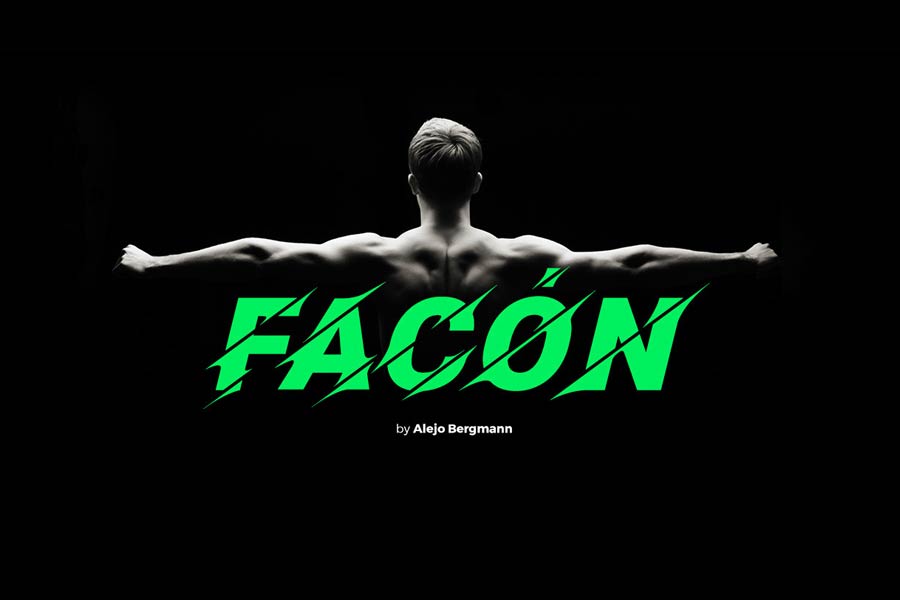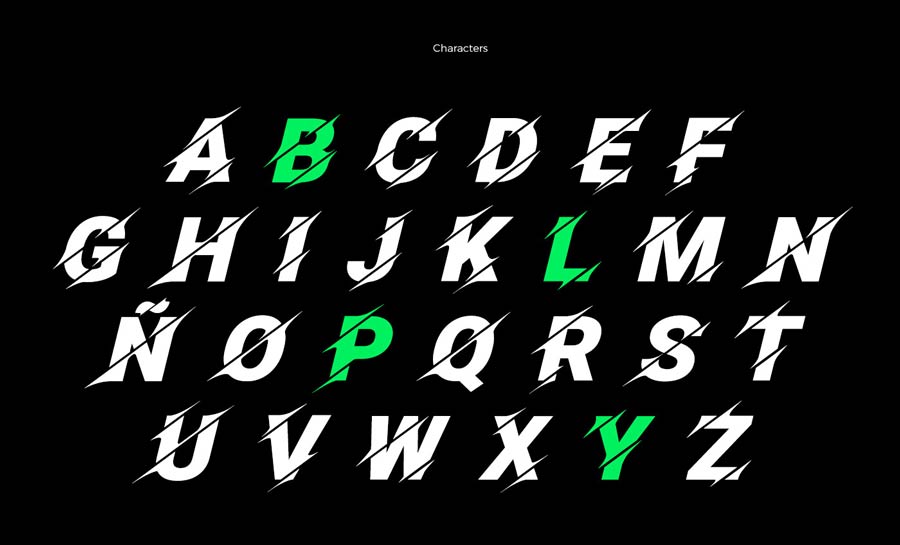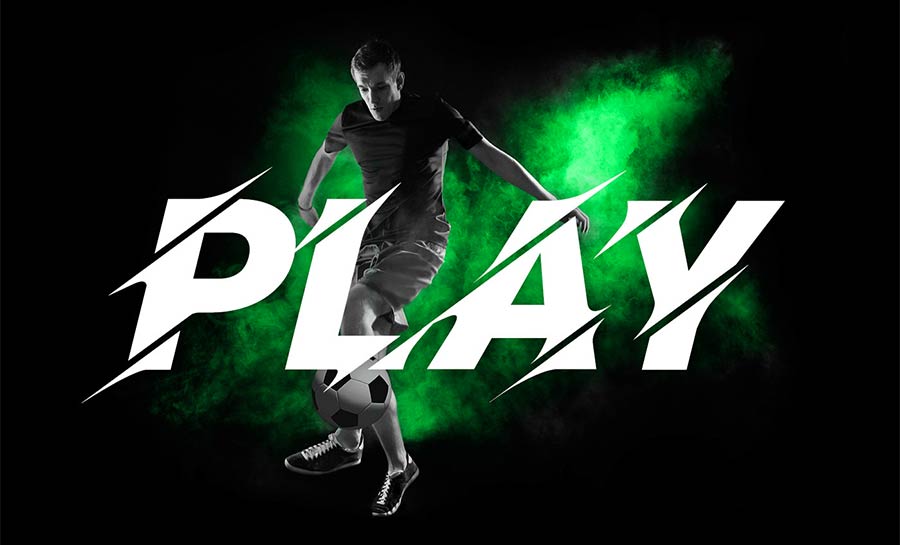
Facón is a font that emphasises on movement and speed. This slanted, sporty look of the font features diagonal cuts across the characters, bringing out the sense of speed.
Facón contains all capital letters, numerals and symbols, and is perfect for designs for posters, logos and banner for your sports club’s next event! Download for free and use it in any of your projects!